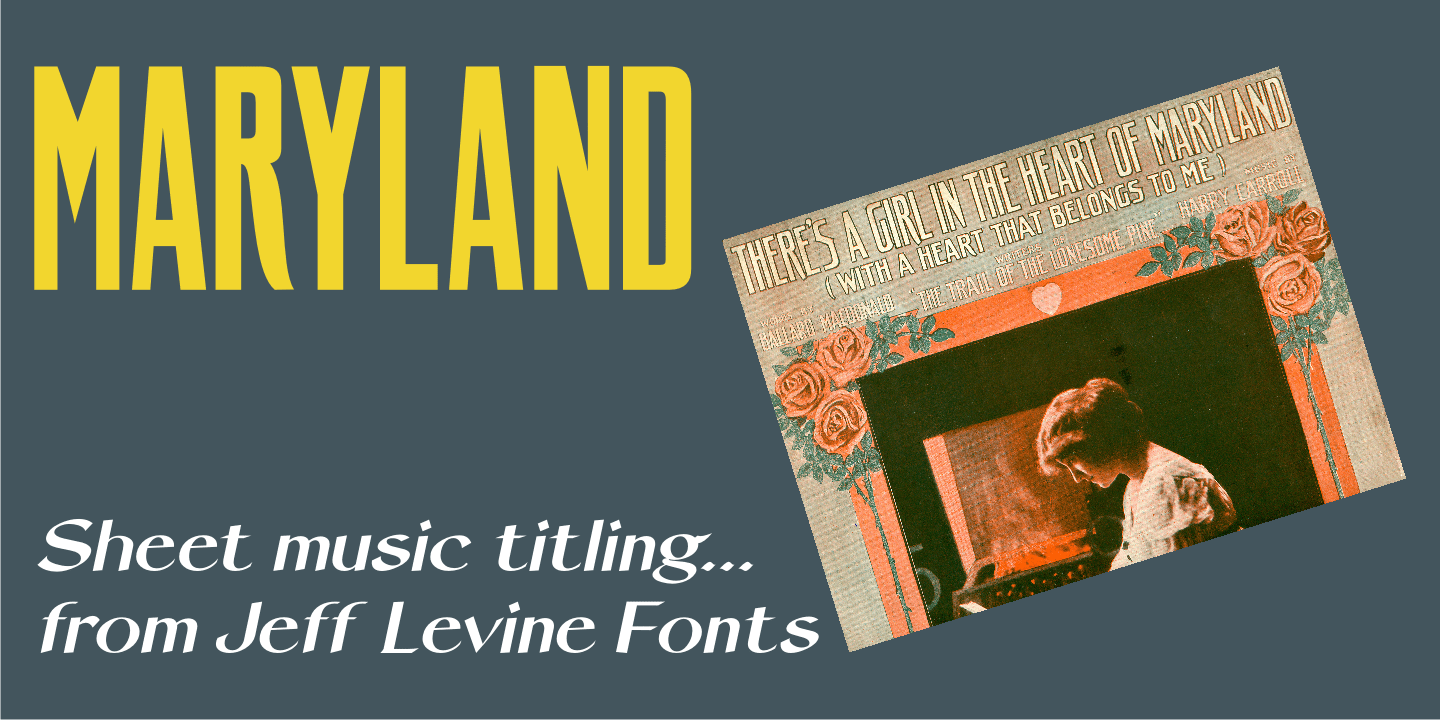
Maryland
The 1913 sheet music for 'There's A Girl in the Heart of Maryland (with a Heart That Belongs to Me”) may have had no shortage of words in the title – fifteen to be exact, but it also offered some nice hand lettering in the Art Nouveau style.
Maryland JNL is a condensed typeface with an unusual twist. The 'S' and 'G' both have spurs on them, which is reminiscent of the preceding Victorian period and the popular spurred Tuscan alphabets of the time.
Maryland JNL Regular by Jeff Levine Fonts